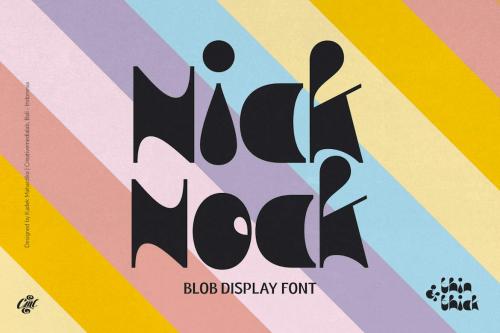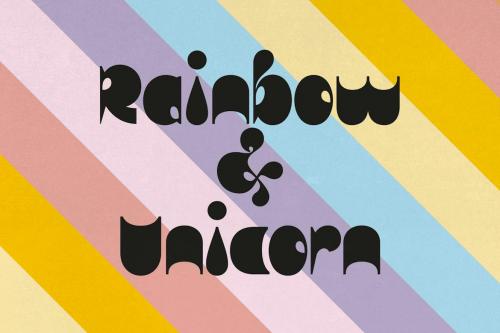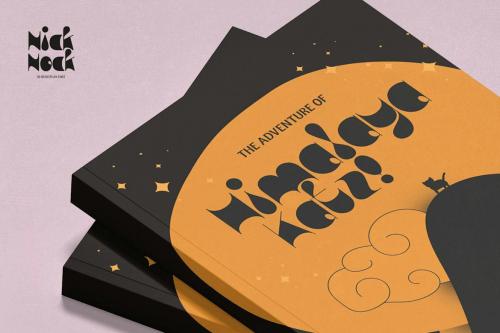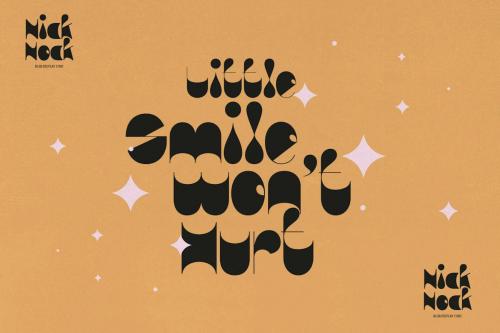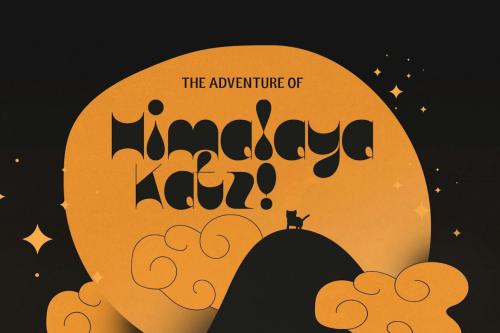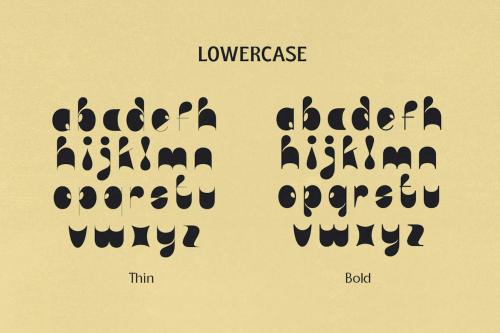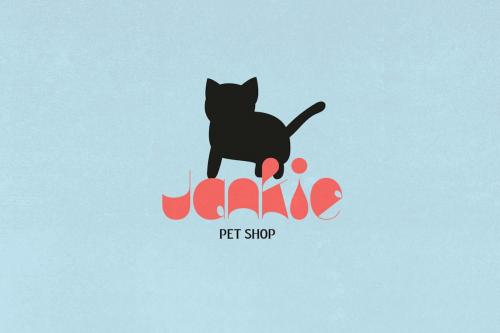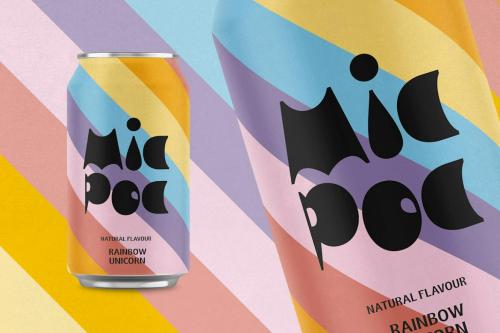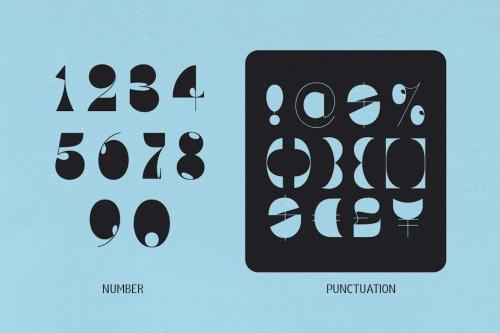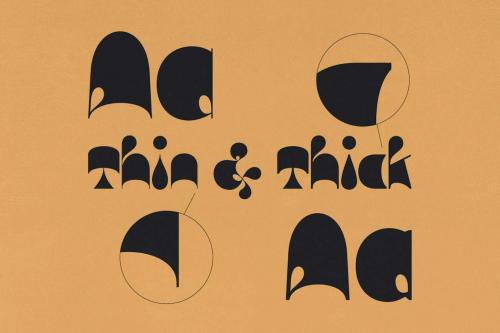
尼克·诺克 - 垃圾桶显示字体
Nick Nock - Blob Display font
Introducing Nick Nock, a blob and chunky display font. Comes in 2 styles featuring thin and thick typefaces, truly one of a kind. thanks to it unique characters. Nick Nock is suitable for creative, entertaining and fun design themes to instantly grab audience attention. Nick nock features a bold design with chunky characters that’s simply ideal for children’s designs such as posters, tshirts, branding, logo and greeting cards.
Introducing Nick Nock, a blob and chunky display font.
Comes in 2 styles featuring thin and thick typefaces, truly one of a kind. thanks to it unique characters.
Nick Nock is suitable for creative, entertaining and fun design themes to instantly grab audience attention.
Nick nock features a bold design with chunky characters that’s simply ideal for children’s designs such as posters, tshirts, branding, logo and greeting cards.
Explore your imagination with Nick Nock ;).